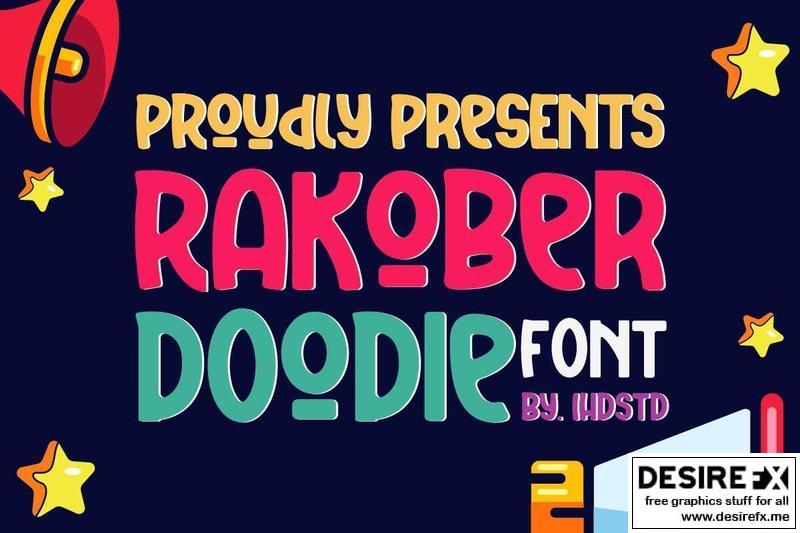
Rakober Doodle Font G9Q93T6
Rakober Doodle font is our new item that suitable for your Posters.
Great for Logo, Poster, Sticker, Jersey, Invitation Card, Brochure, etc.